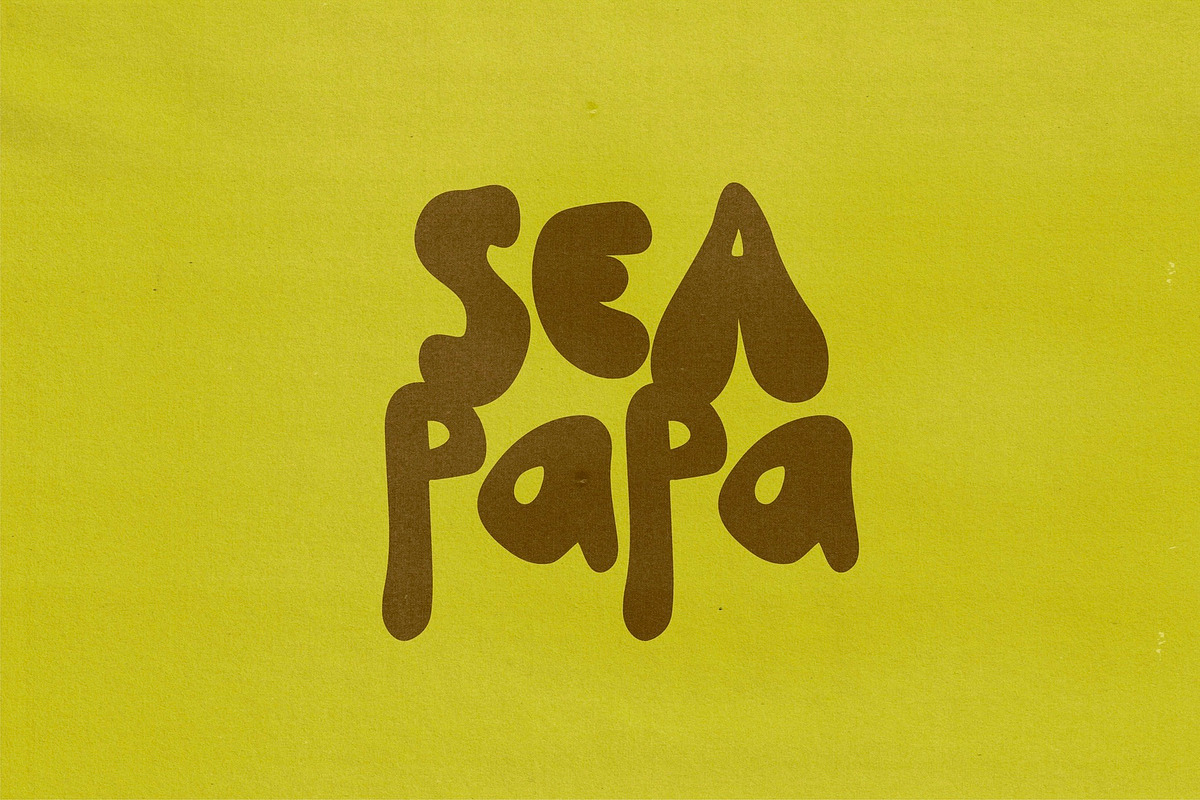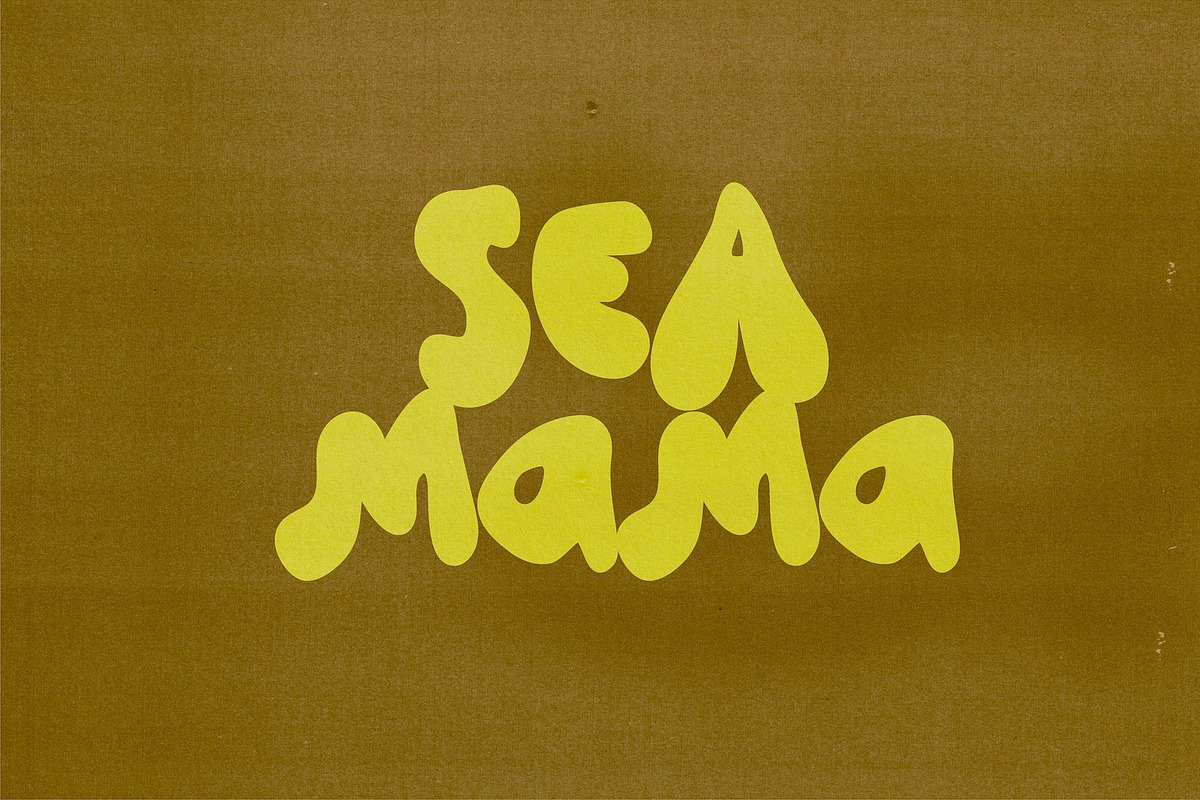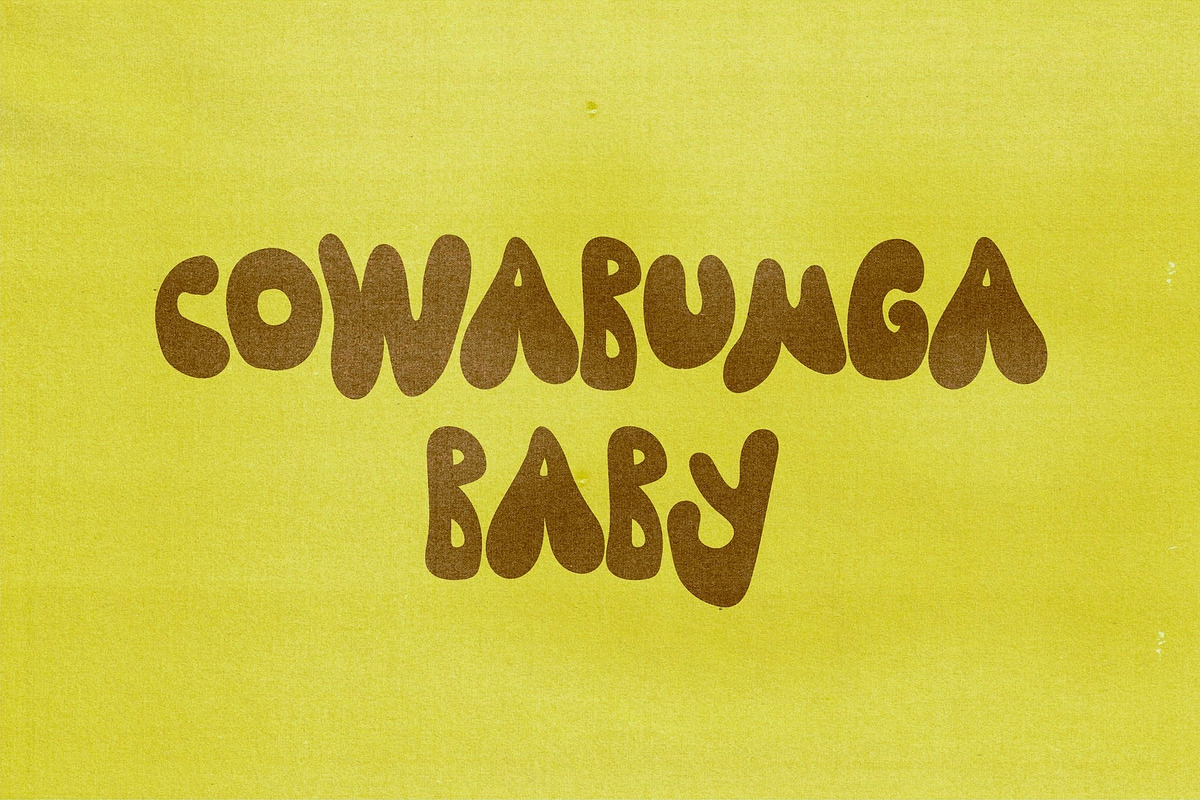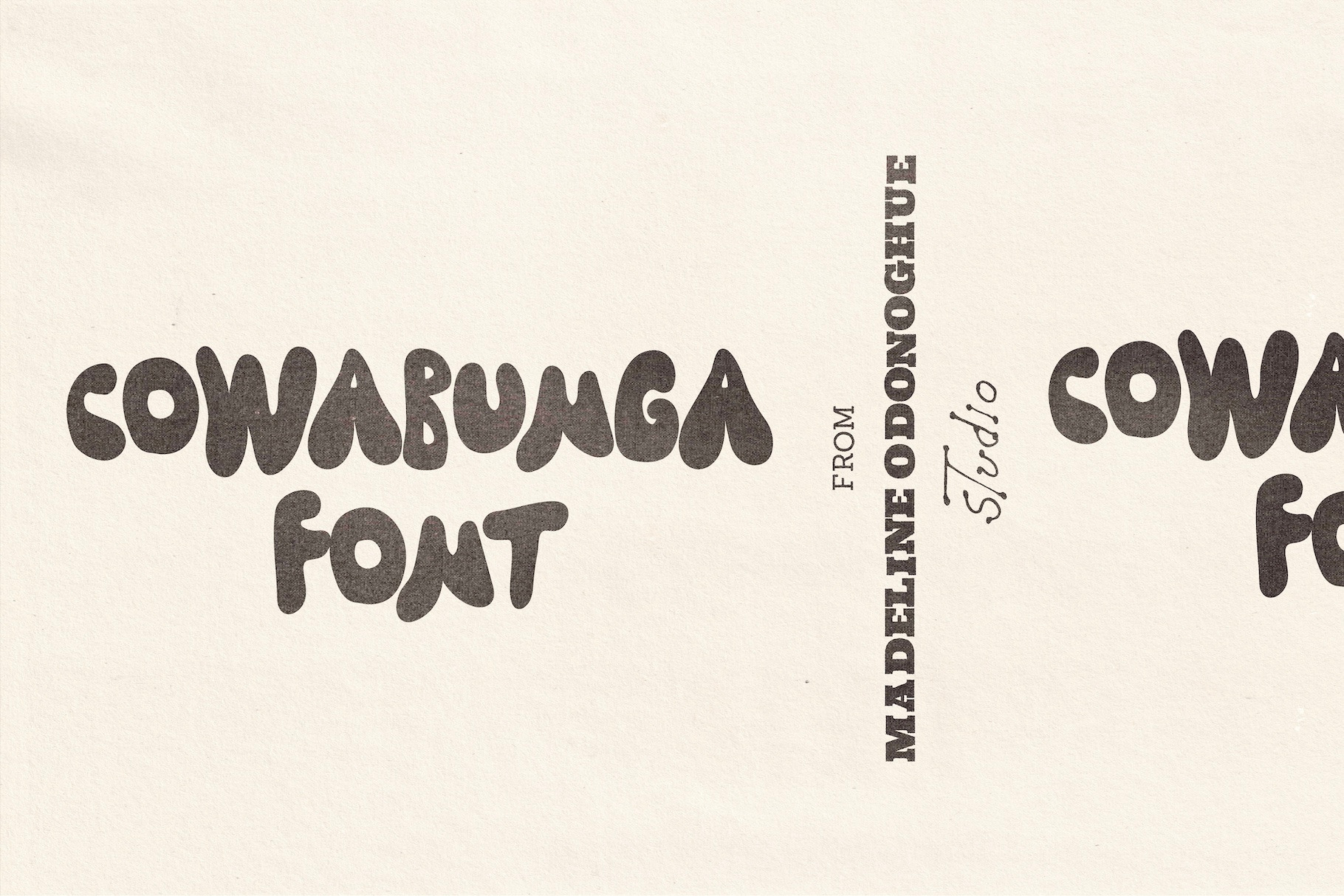
Cowabunga | | Hand Drawn Surf Font
COWABUNGA is a hand-drawn bold display font inspired by the carefree spirit of 1970s surf culture, vintage merchandise, hand-painted signage and the chunky lettering found across analogue prints, posters and screen-printed apparel.
This lettering style has become something of a Madeline O'Donoghue classic, appearing throughout many of my own artworks, apparel graphics and prints over the years. Most recognisably, it's the lettering style behind designs such as Teach Peace, evolving from years of drawing by hand into a bold, playful typeface full of warmth, character and personality.
Every letter has been intentionally left slightly imperfect, capturing the feel of brush-painted signs, vintage surf graphics and well-loved screen prints. With rounded forms, chunky curves and an easygoing handmade feel, COWABUNGA brings instant personality to logos, branding, merchandise and creative projects.
Whether you're creating a surf brand, apparel collection, café identity, vintage-inspired logo, packaging or poster, COWABUNGA delivers an effortless retro aesthetic with an authentic hand-drawn edge.
A–Z Uppercase
Numbers 0–9
Basic punctuation
Surf brands
Apparel & merchandise
Logos & branding
Cafés & hospitality
Posters & album artwork
Packaging
Stickers
Screen print graphics
Vintage-inspired creative projects
Any design looking for a chunky hand-drawn display font with an effortless 70s coastal spirit.
Cowabunga is designed for designers, creatives, and brands looking to create expressive, imperfect typography with a strong visual voice.